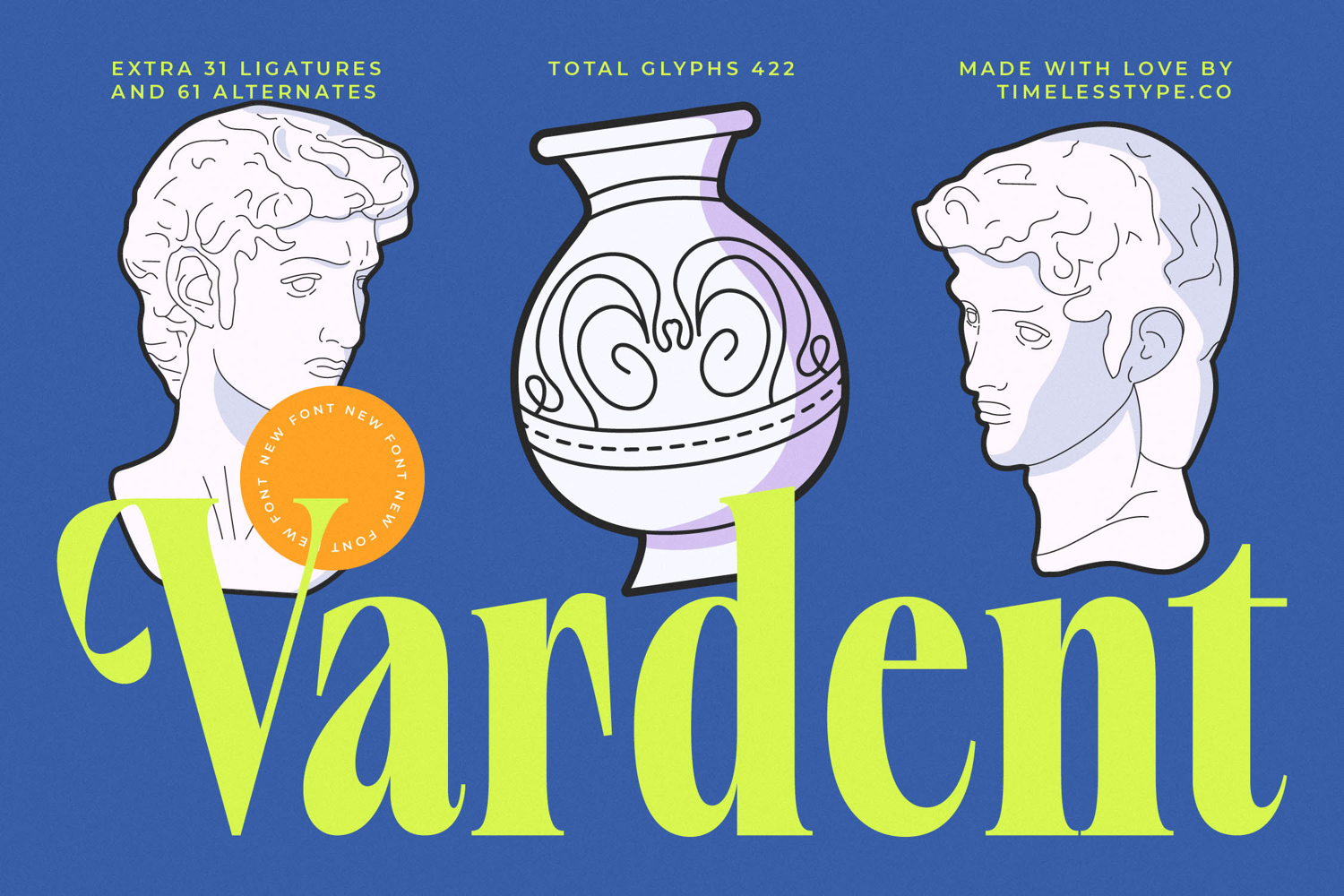
Vardent - Modern Serif Font
Elevate your designs with the sophisticated charm of Font Vardent - Modern Serif Font Serif Display. This exquisite display serif font embodies a perfect fusion of modern elegance and timeless classicism, featuring graceful curves and high-contrast strokes. Its refined aesthetic delivers an immediate sense of prestige, making it an indispensable asset for projects demanding visual impact and luxury.
Discover unmatched versatility with Font Vardent - Modern Serif Font Serif Display, boasting an impressive collection of 31 ligatures and 61 alternates from its 422 total glyphs. These extensive stylistic sets offer boundless creative freedom for bespoke typographic compositions. With its extensive multilingual support, Font Vardent - Modern Serif Font Serif Display adapts seamlessly across global markets, making it incredibly versatile for international projects.